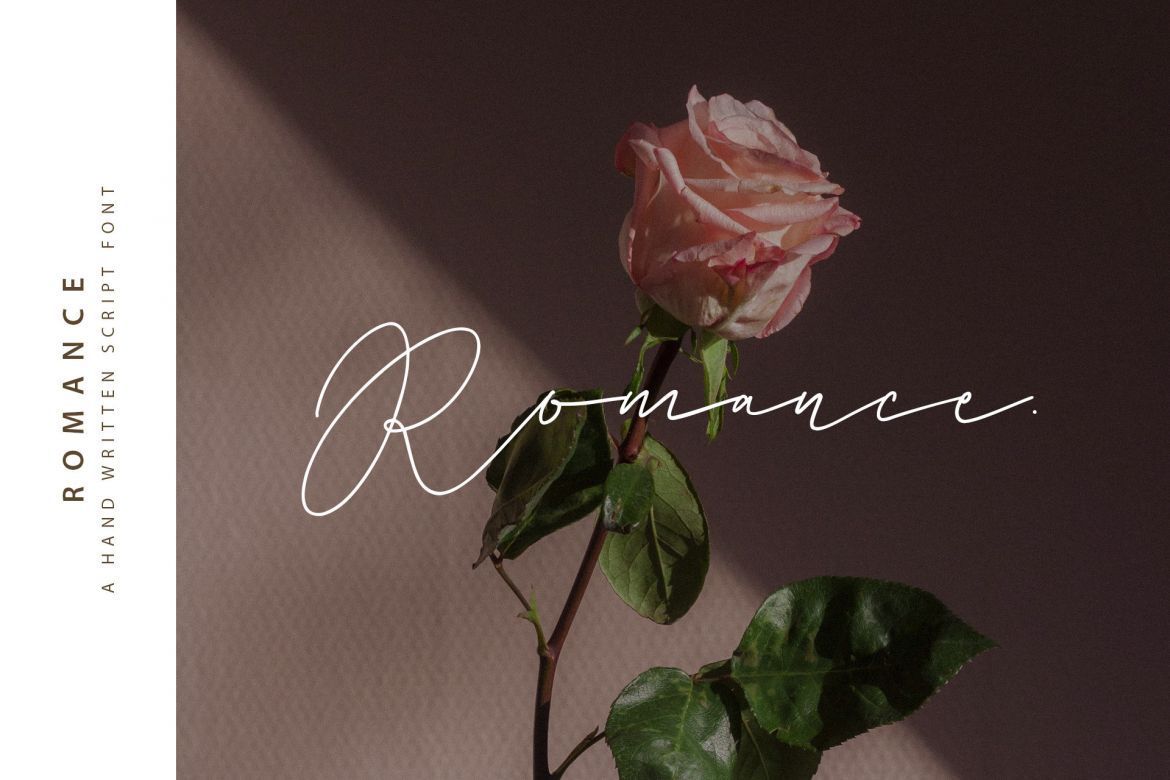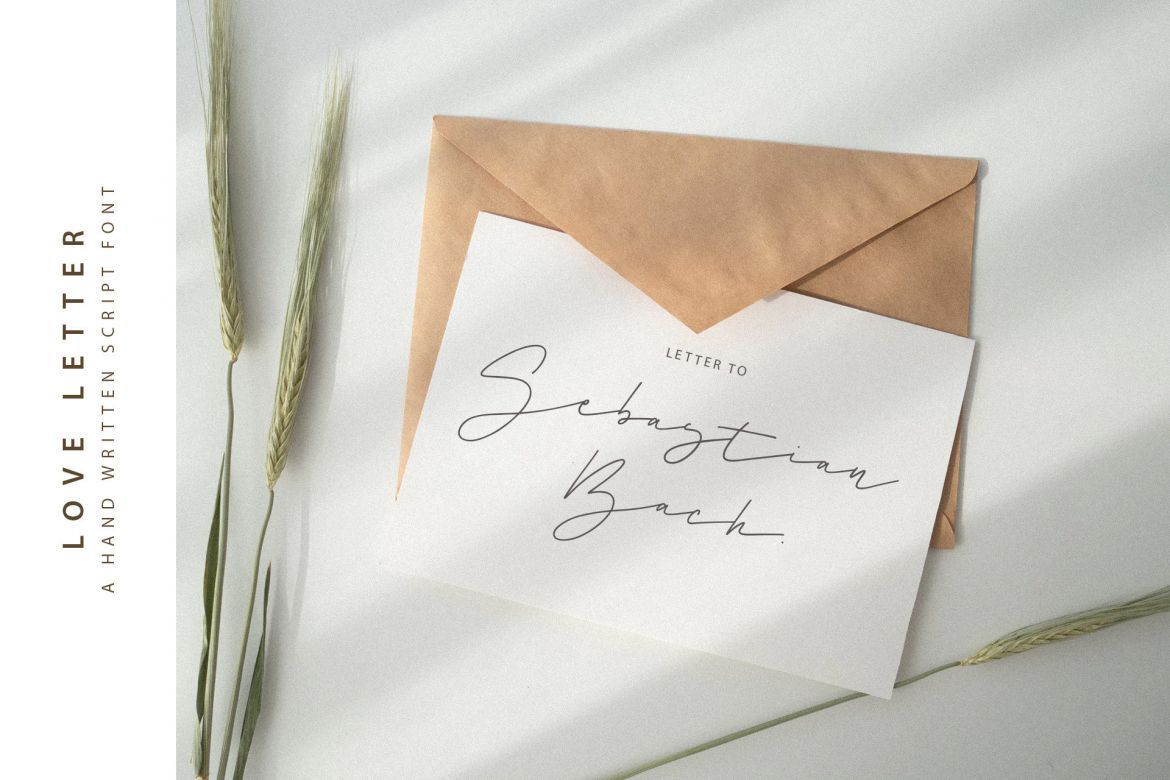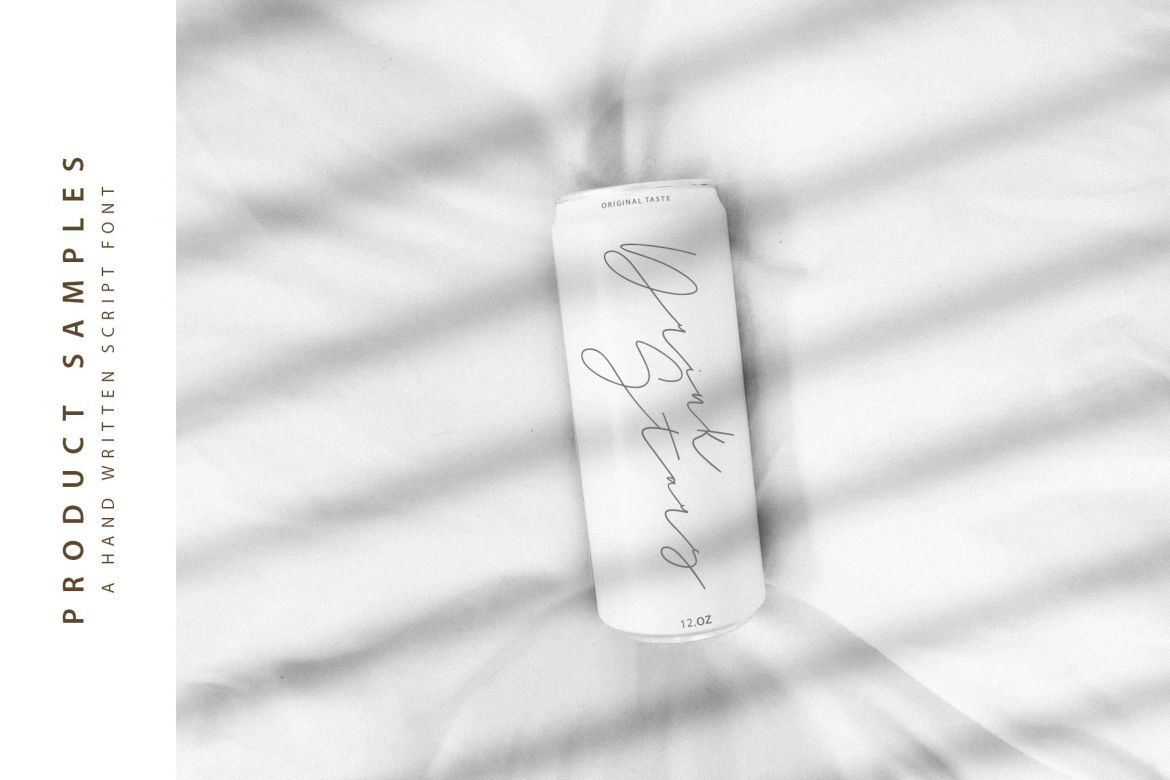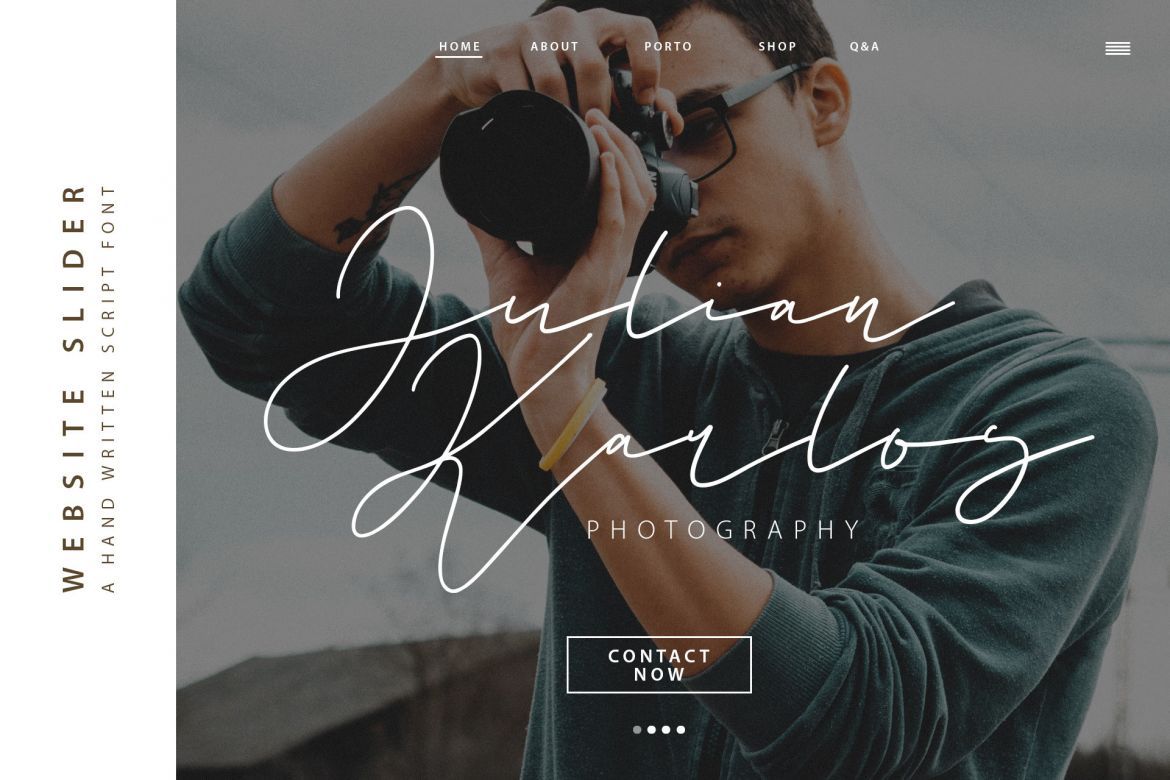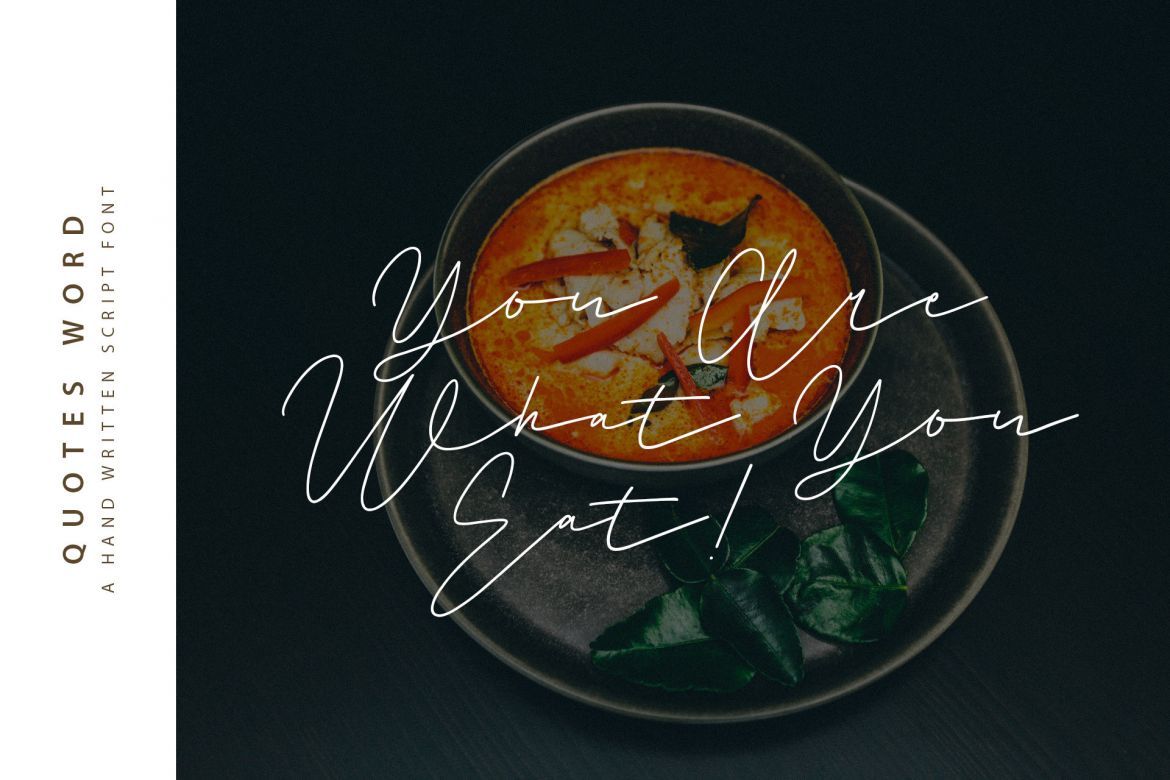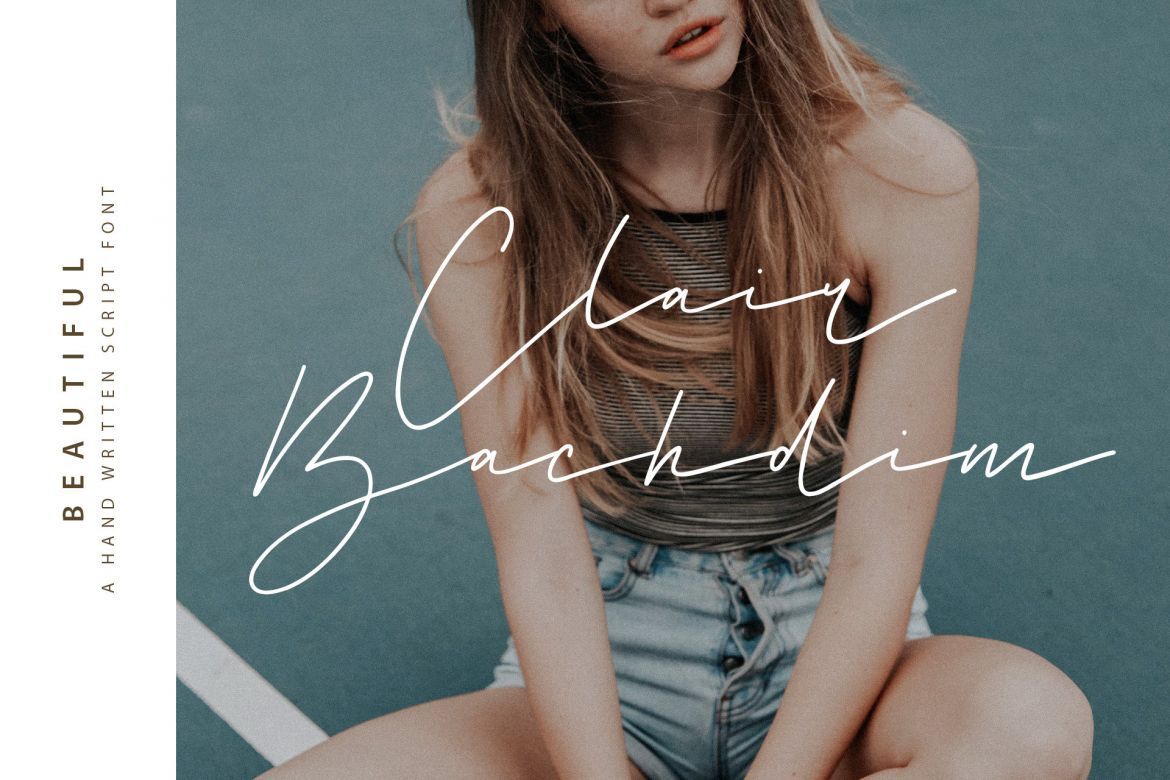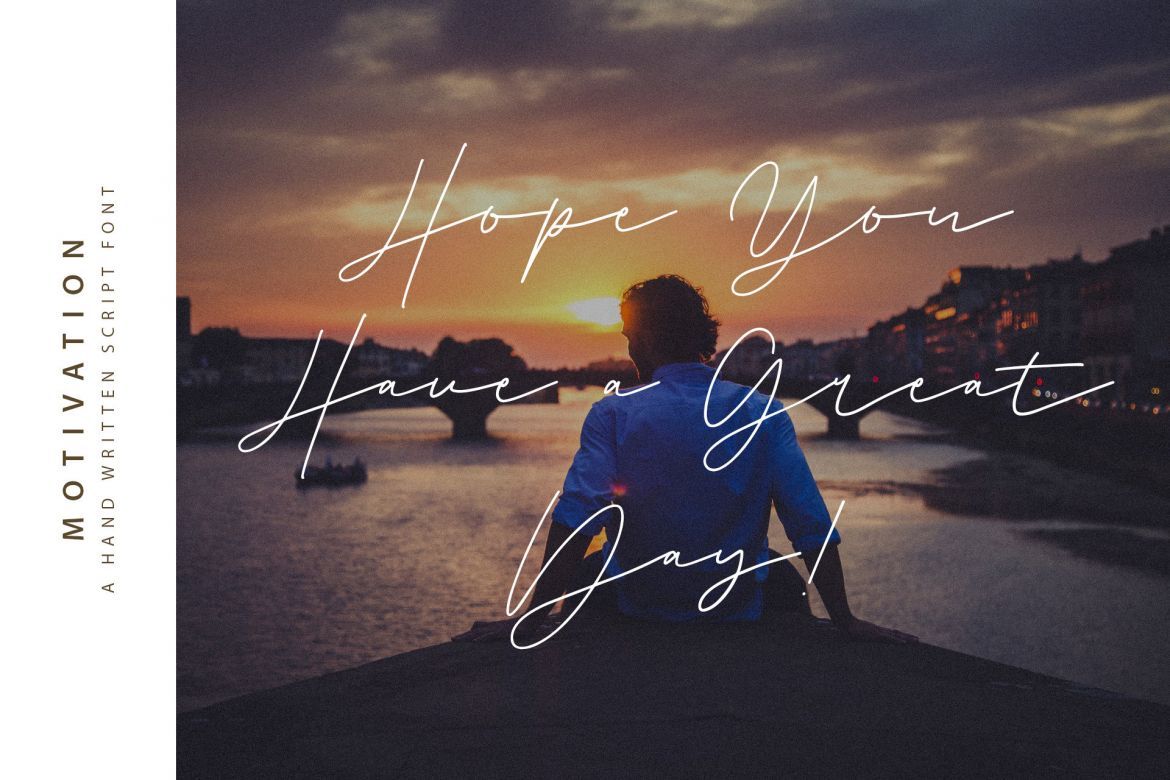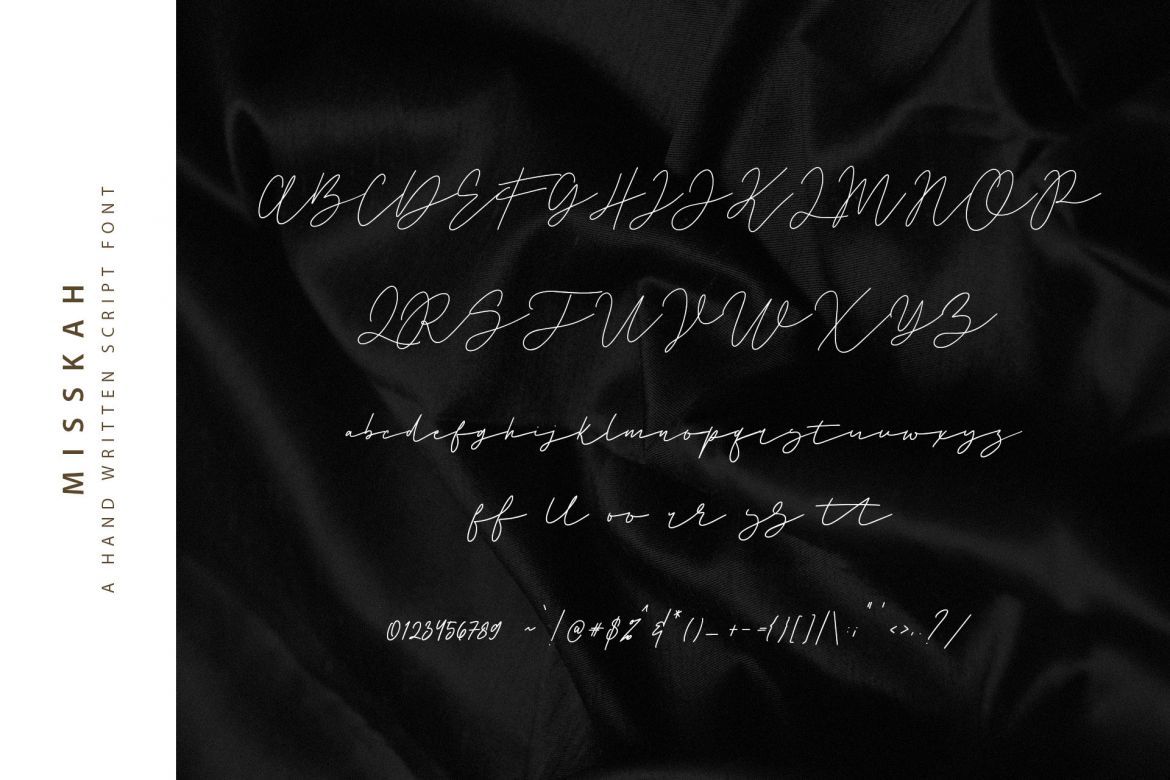
Misskah Script Font
Give your designs an authentic brush handcrafted feel. "Misskah Script Font" is perfectly suited to signature, stationery, logo, typography quotes, magazine or book cover, website header, flyer, clothing, branding, packaging design and more.
Ligature: ff ll oo rr ss tt